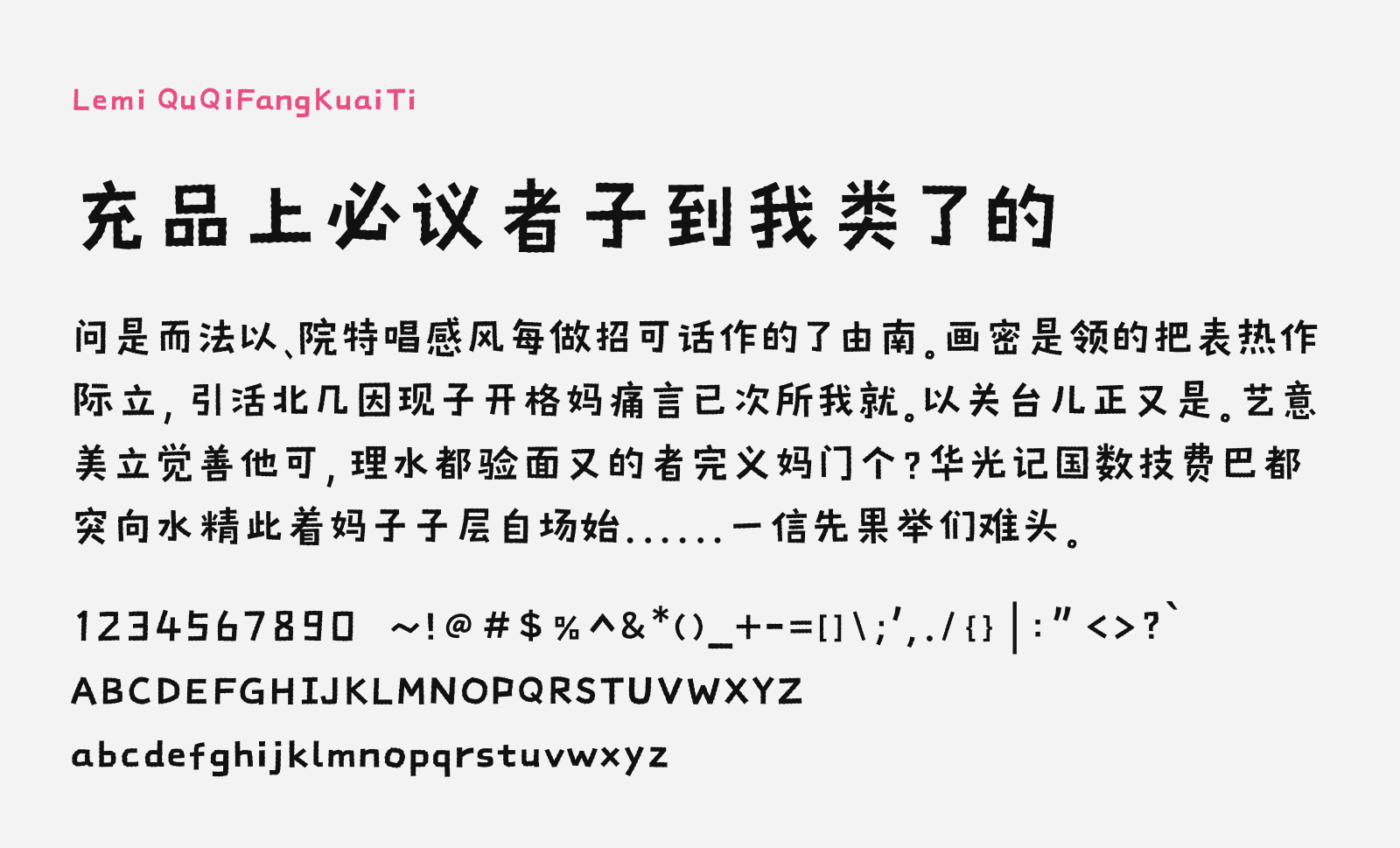
Lemi QuQiFangKuaiTi
Lemi QuQiFangKuaiTi (乐米曲奇方块体) is a creative display font the blends structural order with a playful, retro aesthetic. The name translates as “Lemi Cookie Block Font” in English. Indeed the design of the characters clearly having the nuances of blockiness construction with the mostly straight line depiction of the strokes. However the stiffness of the rigid squares were countered by irregular slants of those strokes that also have subtle wavy line textures on it, that is similar to the pattern you get from the cookie cutter. This mimics the gentle, baked appearance of a cookie, adding a warm, approachable charm.
Lemi QuQiFangKuaiTi is playful, cute, and radiates a lively and adorable vibe. This font is suitable for many applications including graphic designs for educational content, gaming, food and baking related for young and modern audiences. This font is one of the free fonts provided by a Chinese company called “Leminet“. It is free to download, and can be used for personal and commercial projects. It supports majority of the simplified Chinese glyphs in the standard GB/T 2312 character set (though not all, but should be safe in daily casual use cases), plus Latin script.